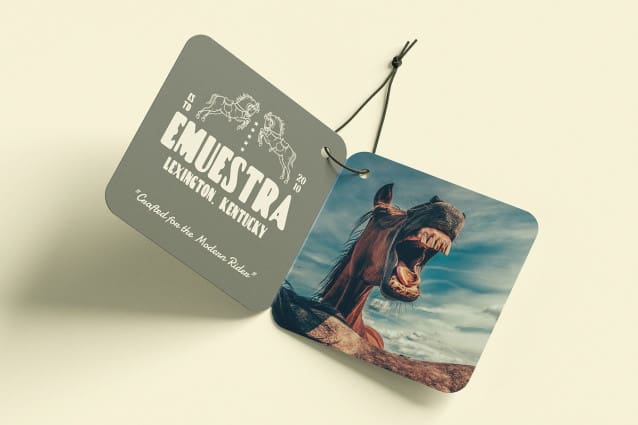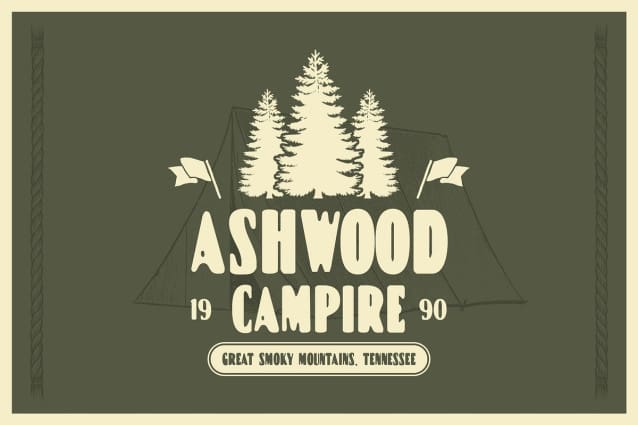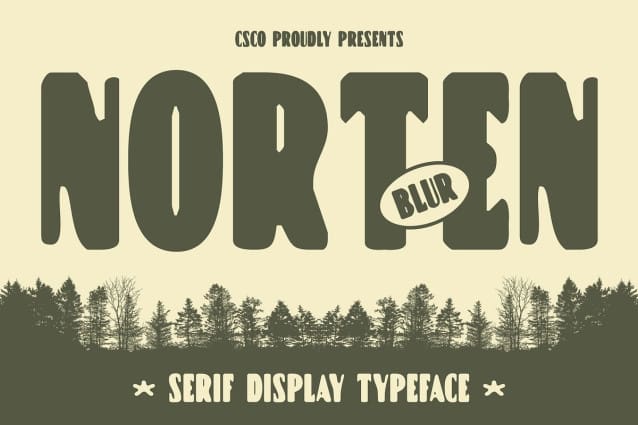
Norten Blur Font
Norten Blur Font is a serif font that boasts a bold design, ensuring a powerful presence in any design project. Its thick, strong shapes are crafted to convey confidence and stability, making it an excellent choice for designs that demand attention and impact.
Artistic Blur for a Modern Feel The defining feature of Norten Blur is its unique blur effect, which adds an artistic and dynamic touch to the font. This effect gives the impression of movement or focus shift, creating a sense of energy that is perfect for contemporary designs. The letters appear as if they are in motion, enhancing the overall visual appeal.
Versatile for Creative Applications Norten Blur is versatile and well-suited for a variety of design applications, including posters, advertisements, and modern graphic design. Its bold shapes paired with the blur effect create a striking contrast that captures the audience’s attention, making it an ideal choice for creative and expressive projects.
Memorable Impressions for Lasting Impact The combination of bold forms and the intriguing blur effect generates a visually unique impression that resonates with viewers. Norten Blur not only highlights the intended message but also leaves a lasting impact, making it a go-to font for designers looking to infuse their work with creativity and expression.